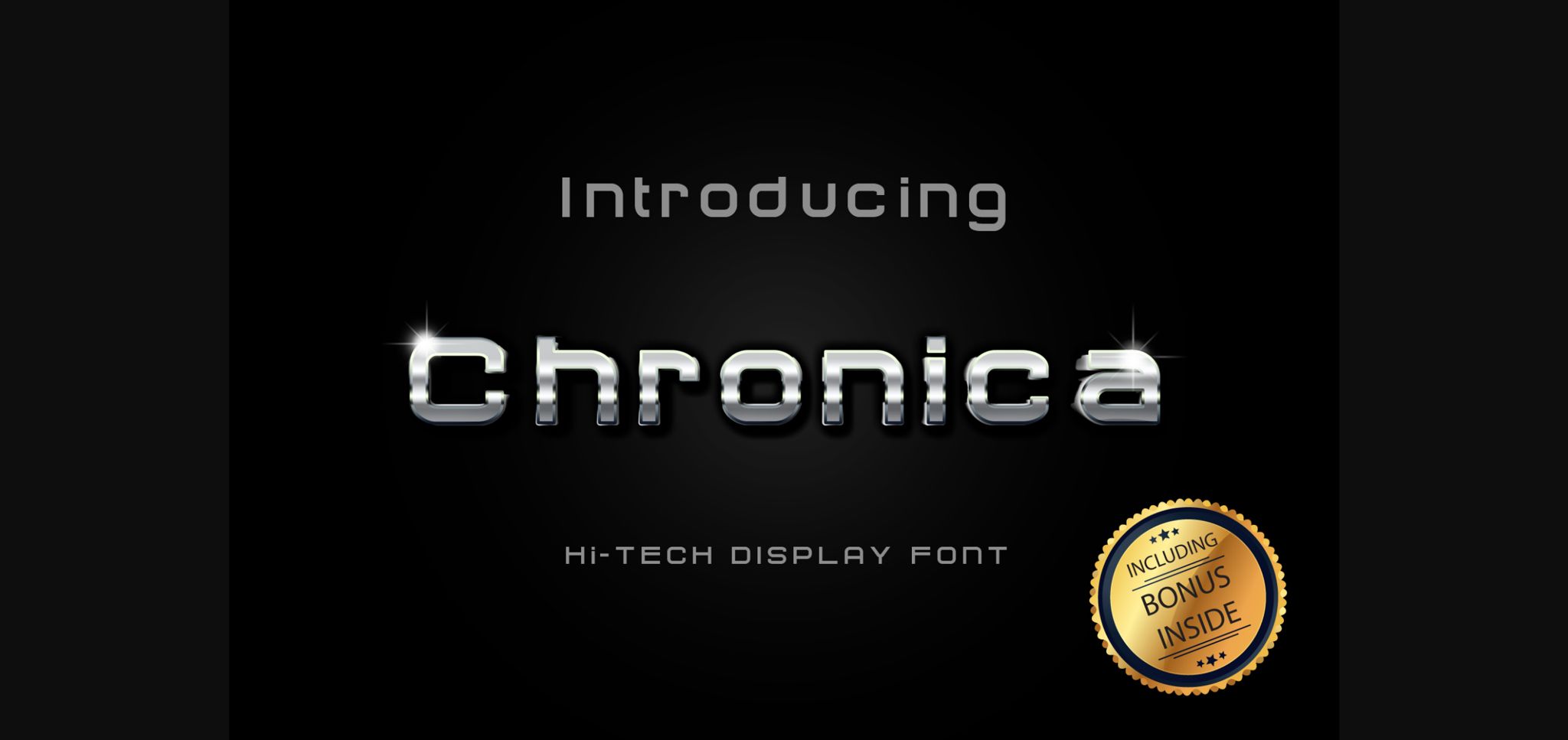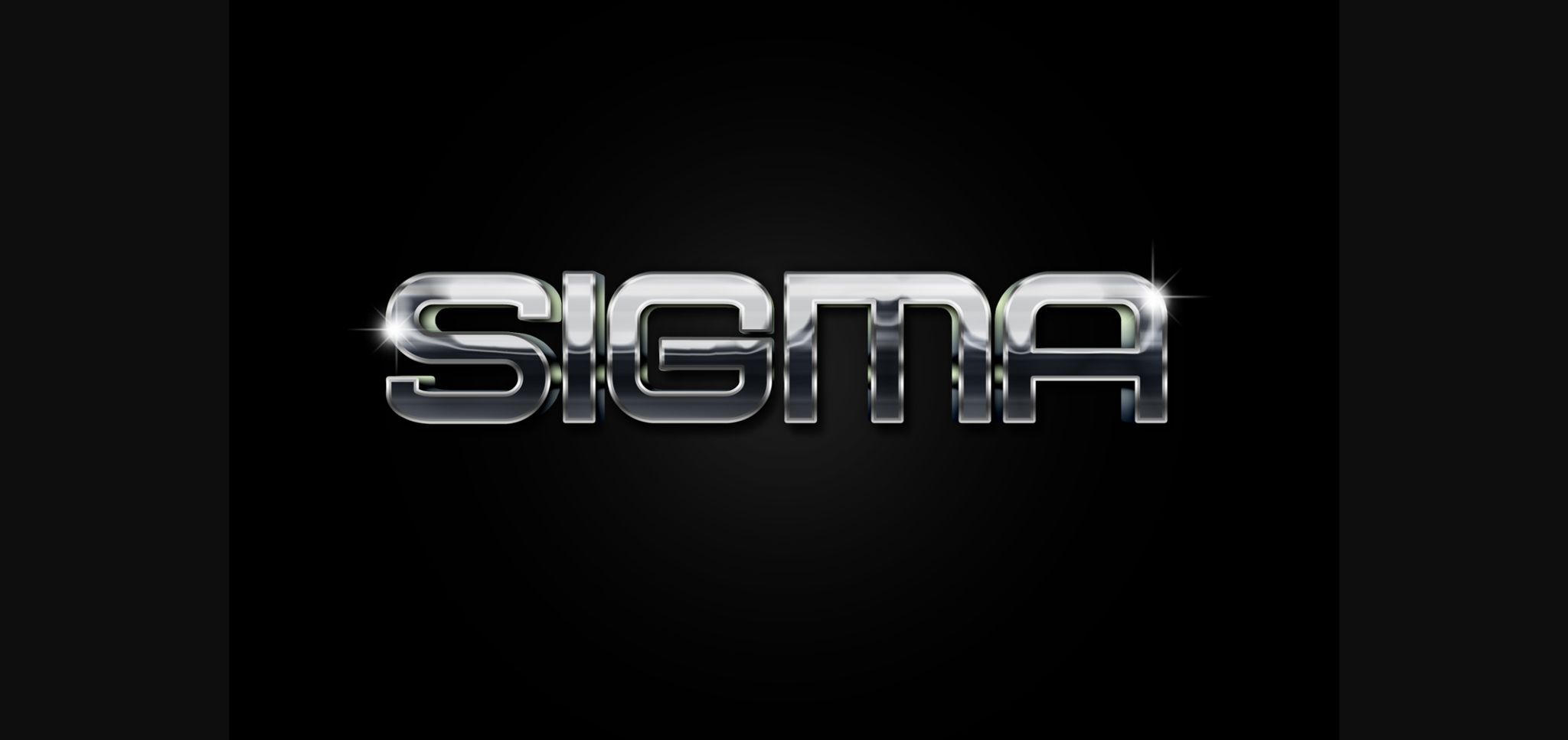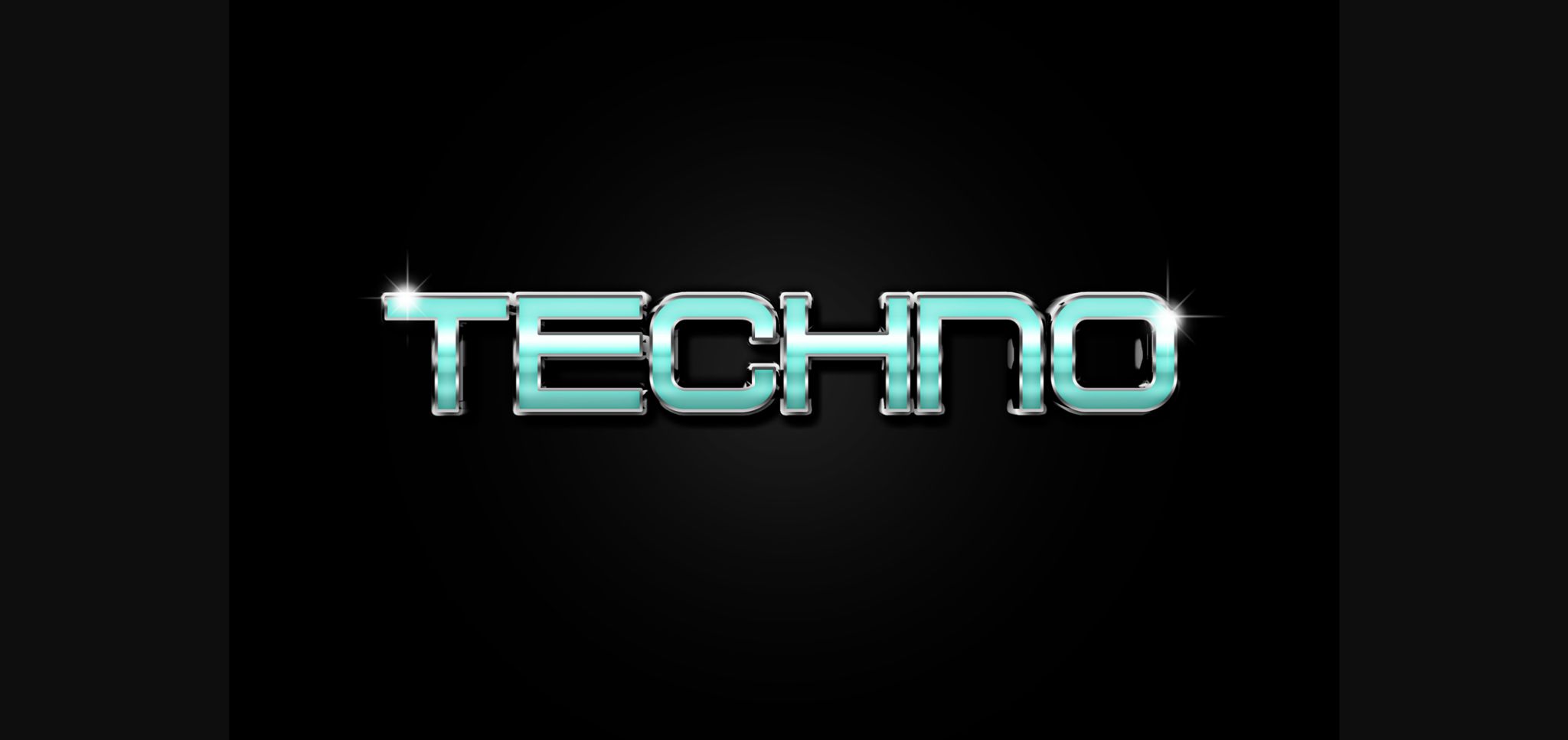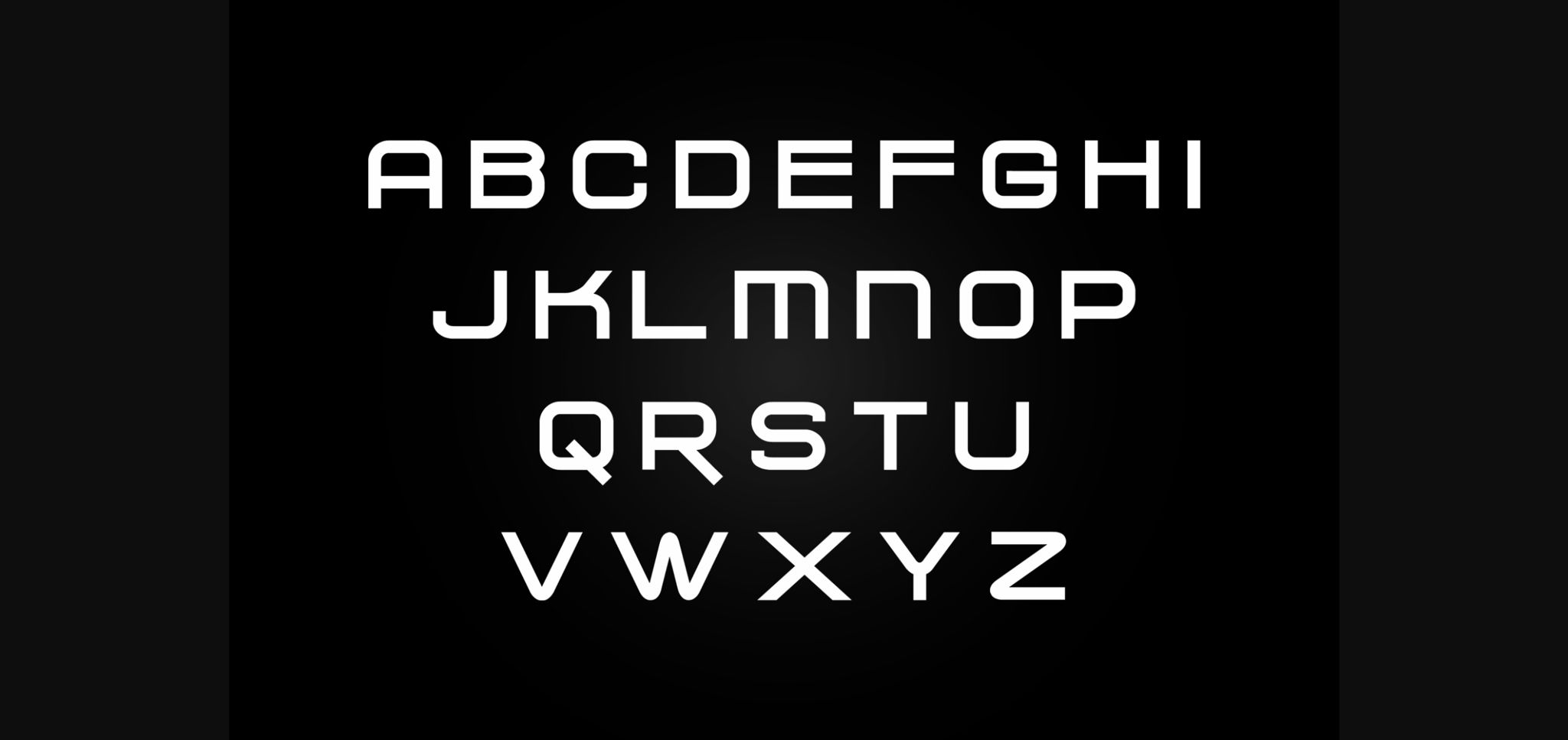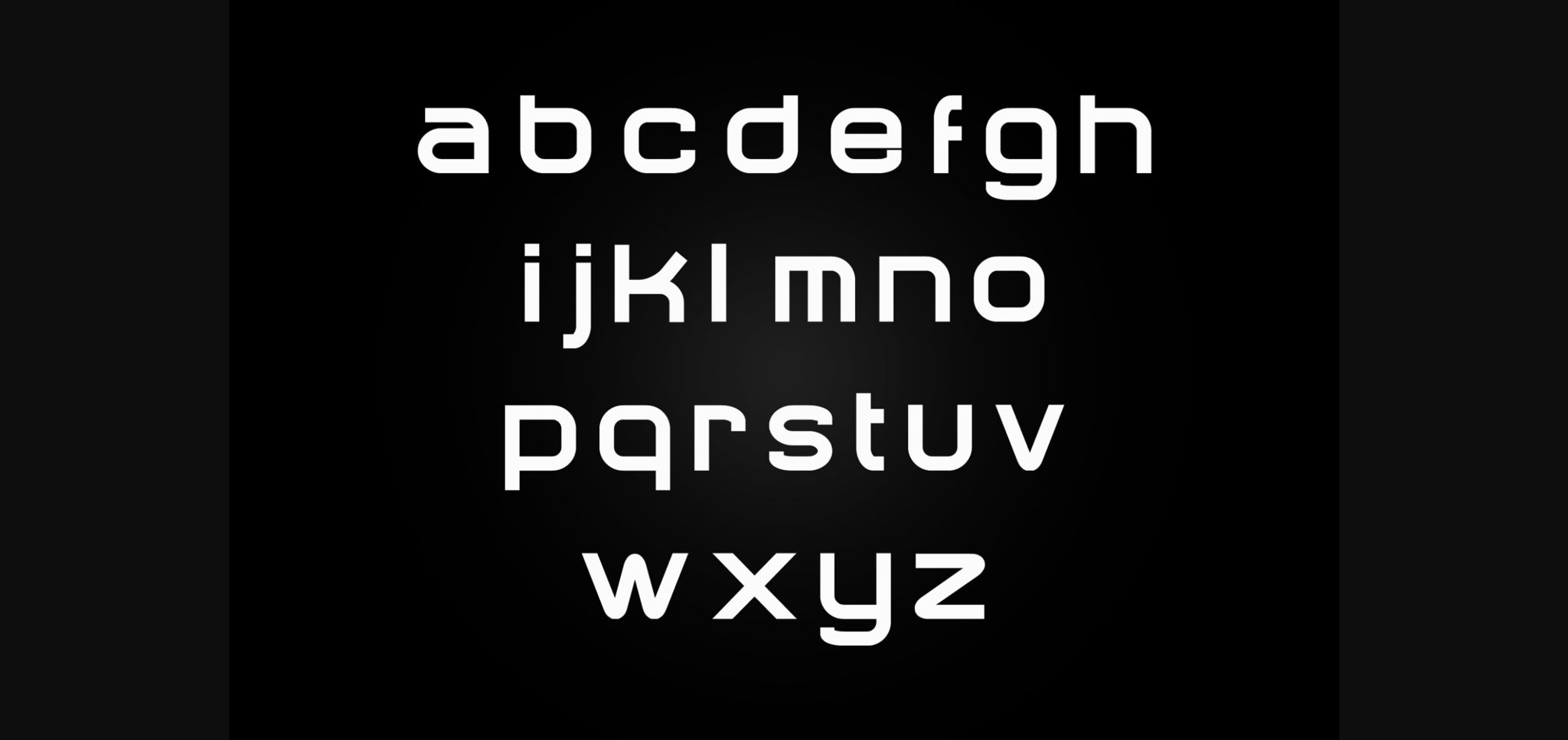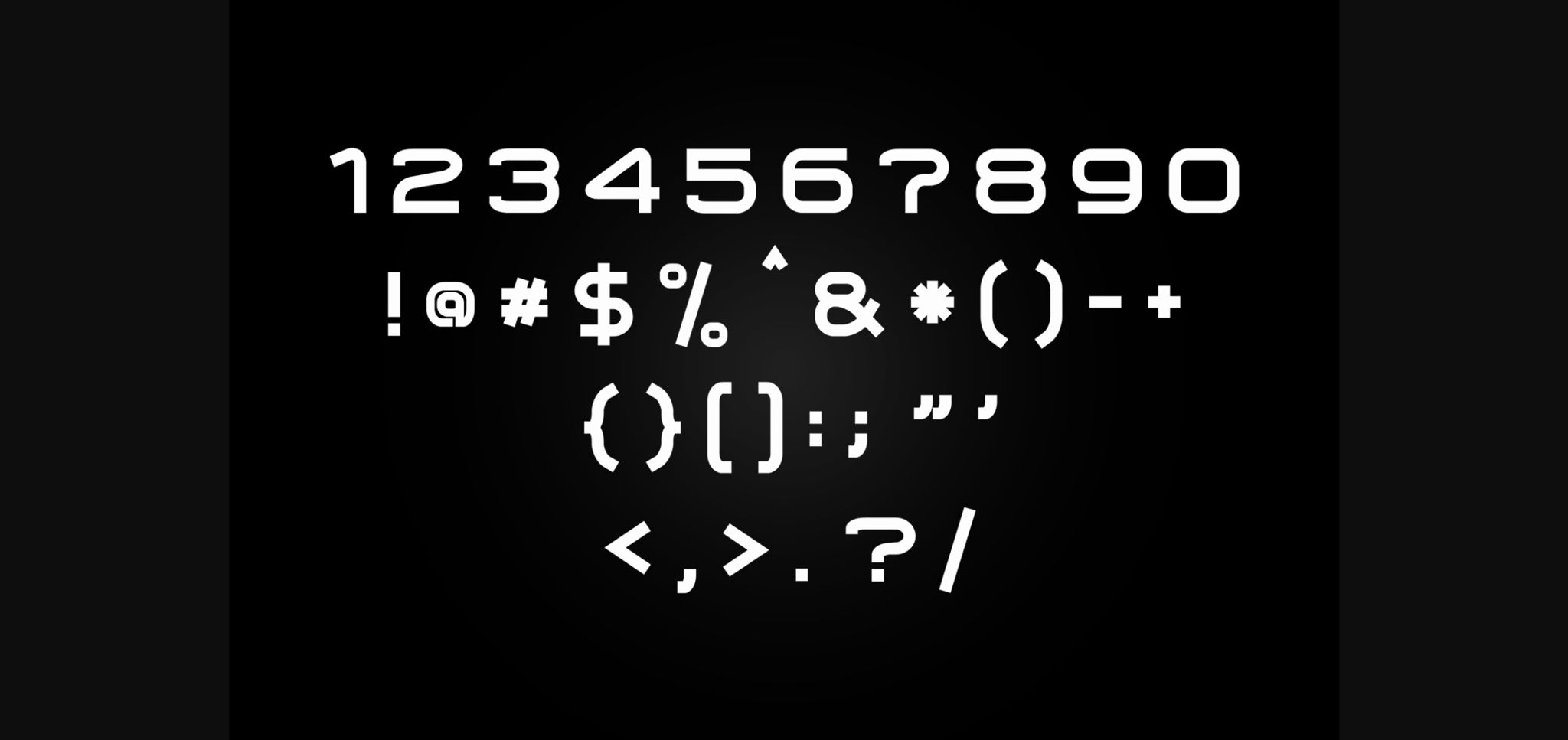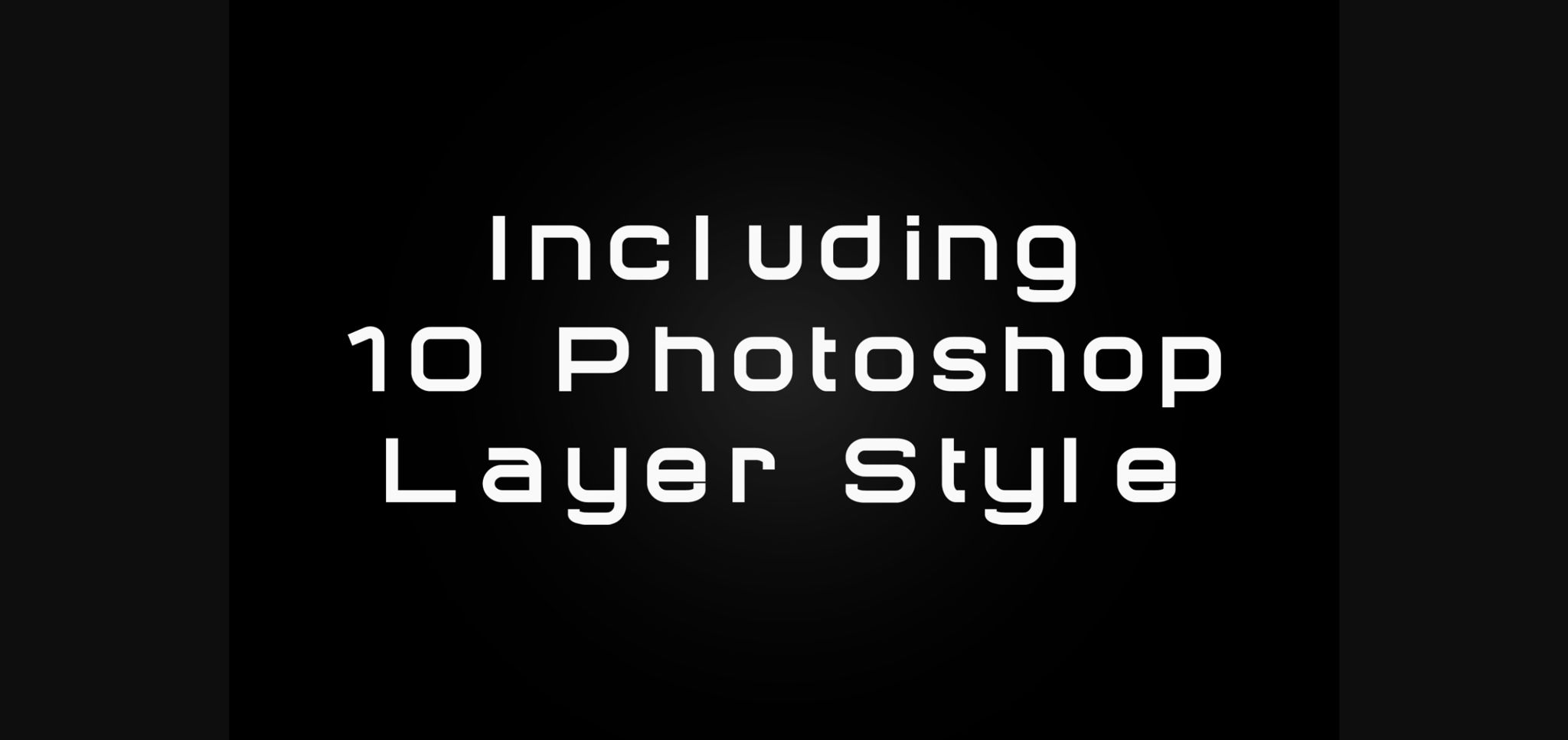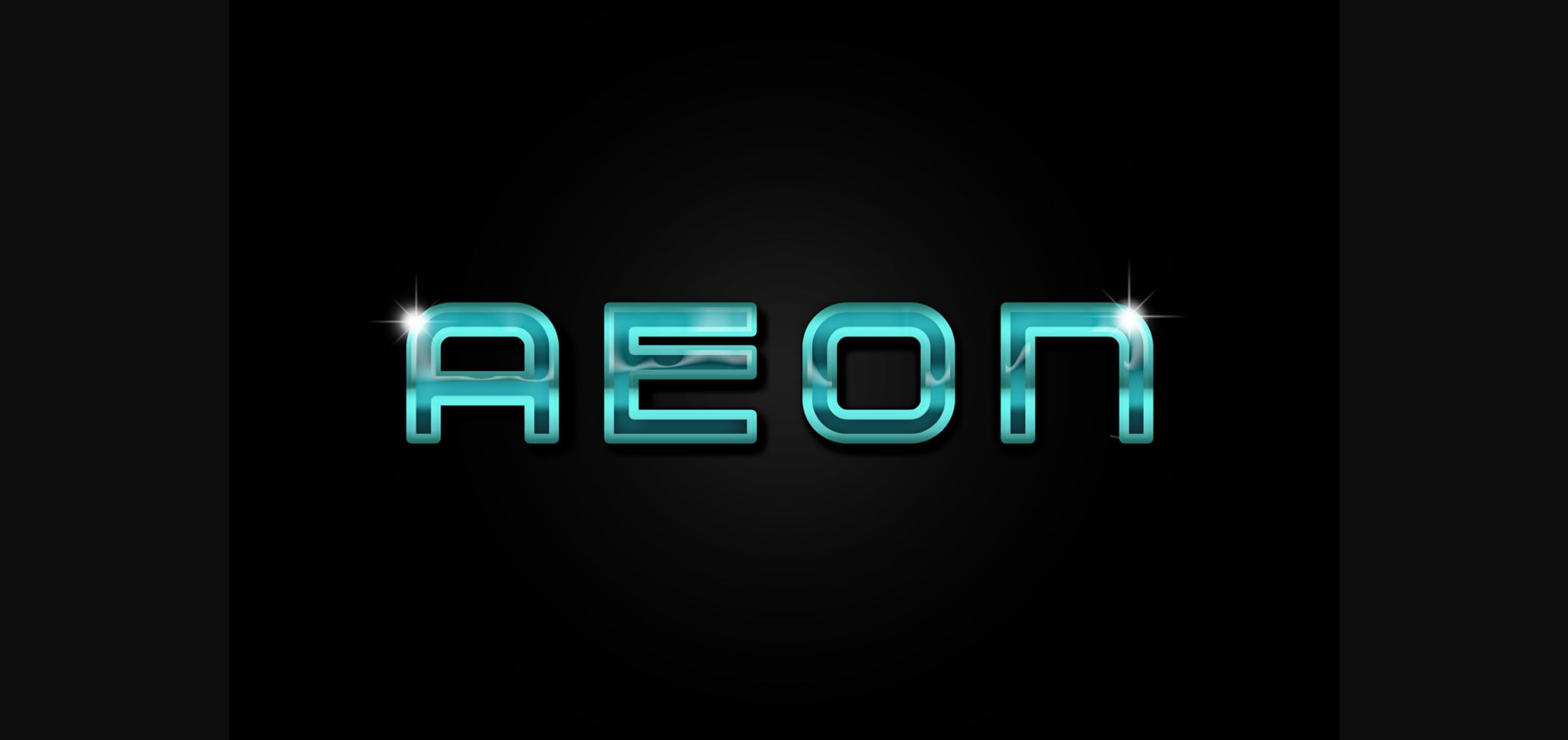
Chronica Font
About Chronica Font
Chronica is a sophisticated sans serif font. Whether it’s for web, print, moving images or anything else this font will look spectacular.